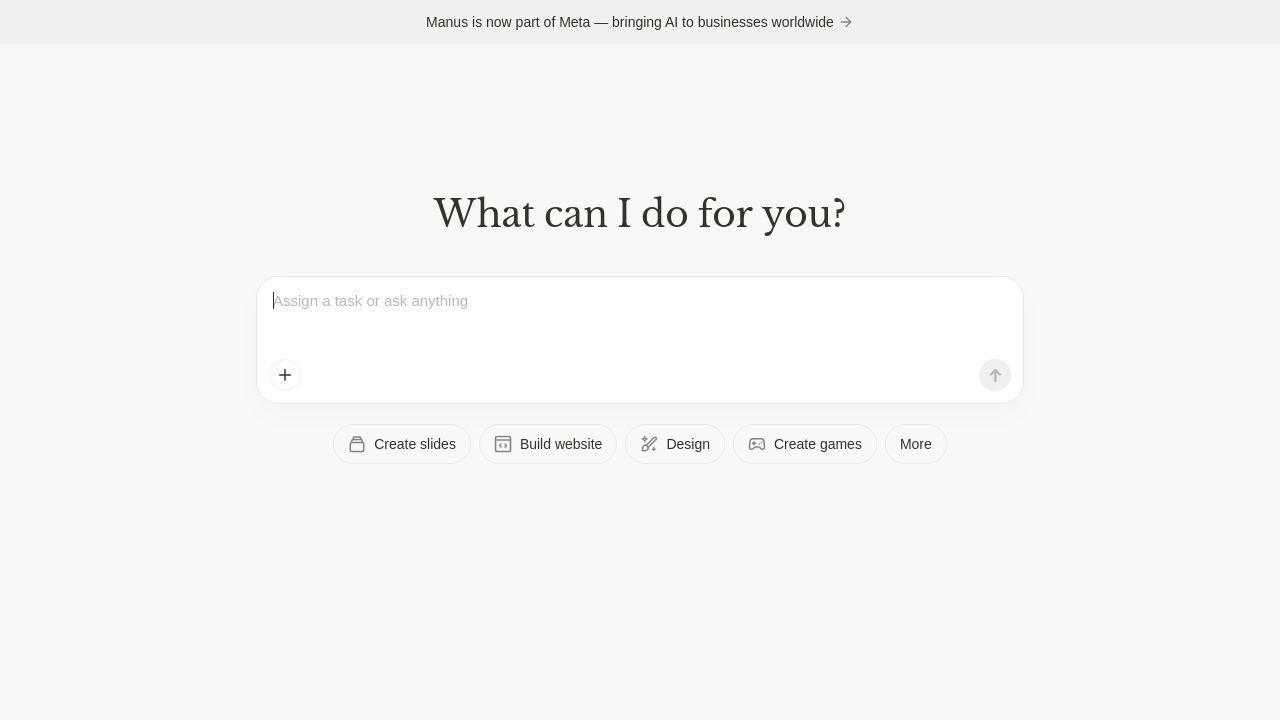
At manus.ai, a platform designed to enhance automation and workflow efficiency, typography plays a crucial role in conveying clarity and functionality. The site employs a diverse range of custom KaTeX fonts, such as KaTeX_Script and KaTeX_Math, which are essential for displaying mathematical expressions and structured content. Complemented by Noto Serif JP, TC, and SC, the typography reflects an engaging yet straightforward visual identity tailored for its tech-savvy audience.
manus.ai primarily utilizes custom KaTeX fonts like KaTeX_Script, KaTeX_Math, and Noto Serif in various styles for effective content presentation.
The fonts used on manus.ai, particularly the custom KaTeX fonts, are specifically designed for mathematical typesetting, making them unique compared to standard web fonts.
manus.ai features various weights for their fonts, including 400 for KaTeX_Script and Noto Serif, and 700 for KaTeX_Math and other KaTeX styles, providing versatility in typography.